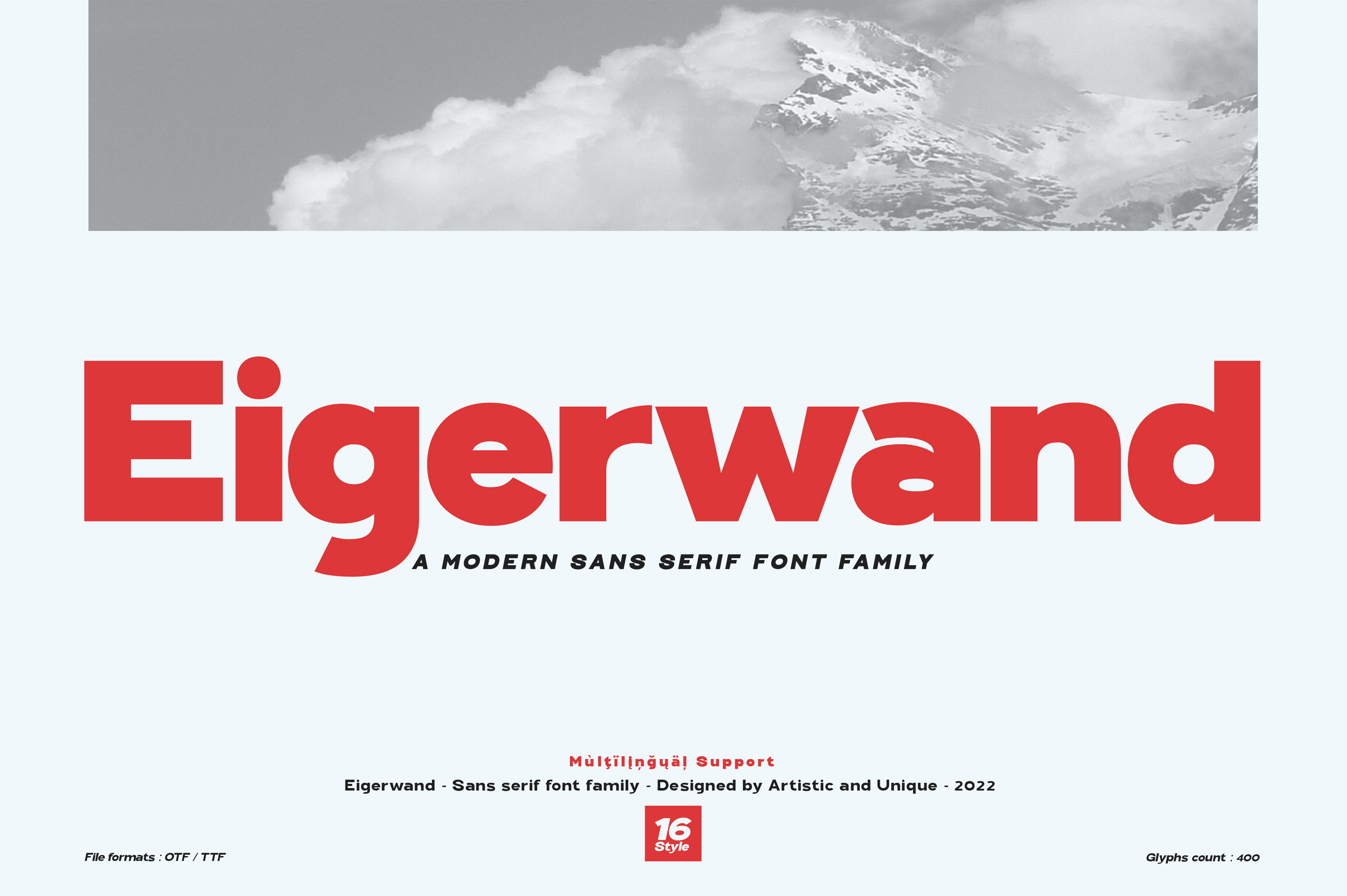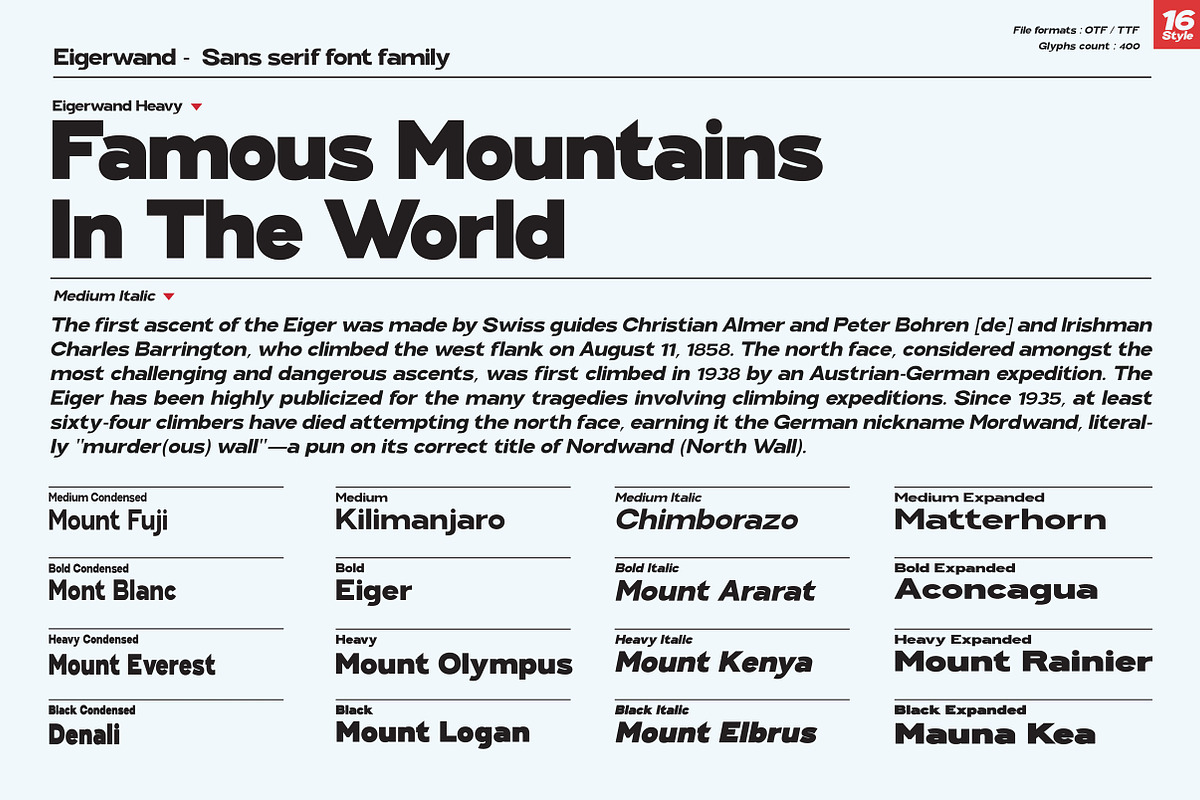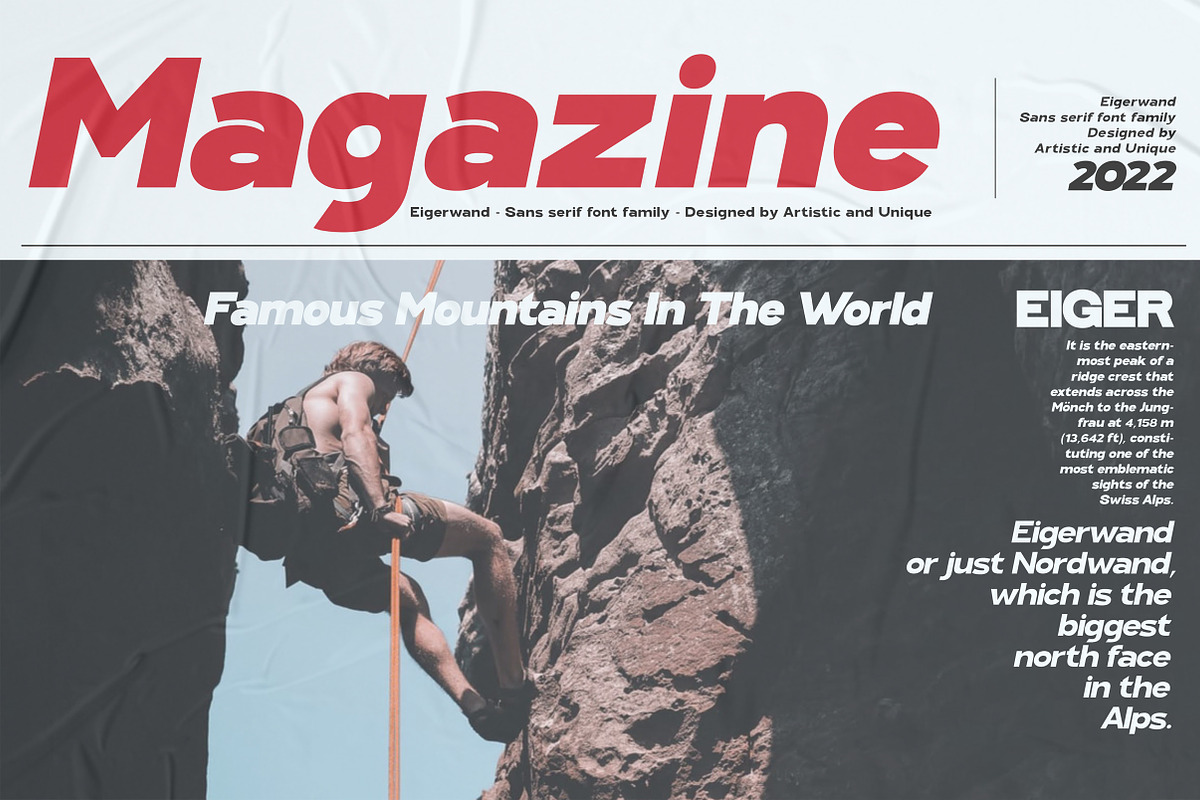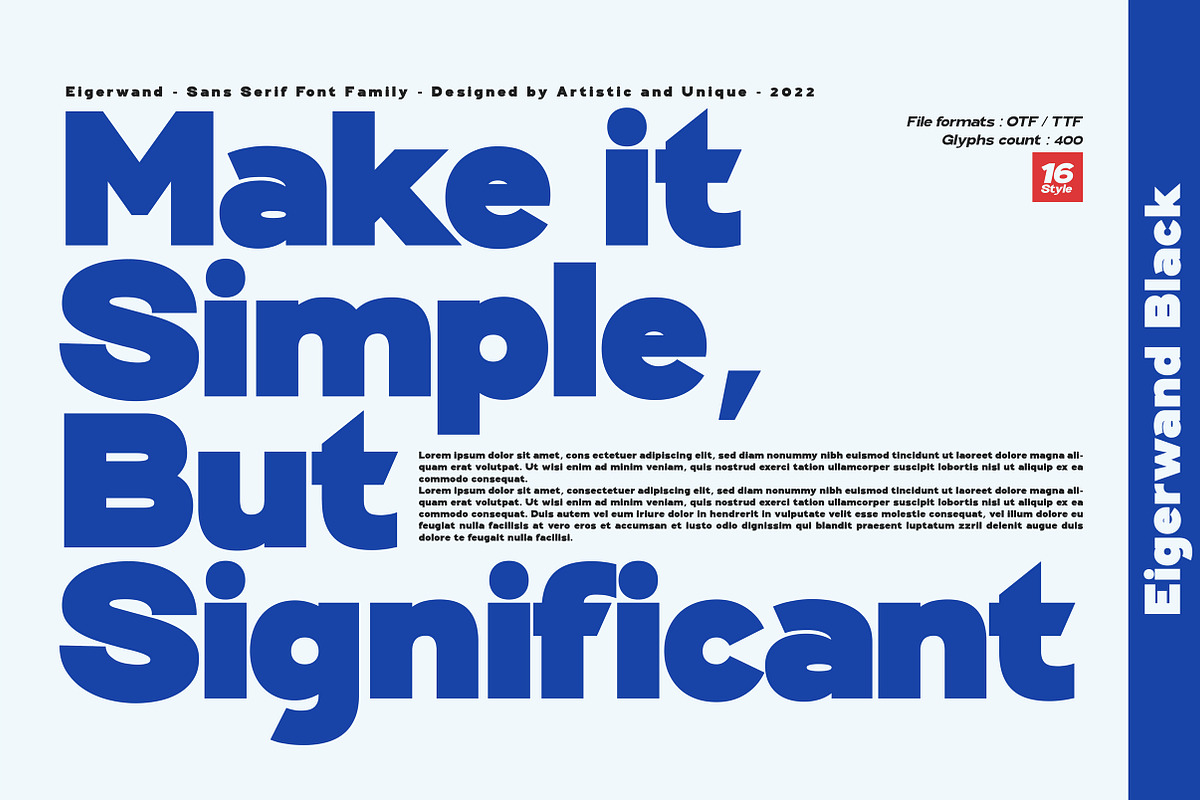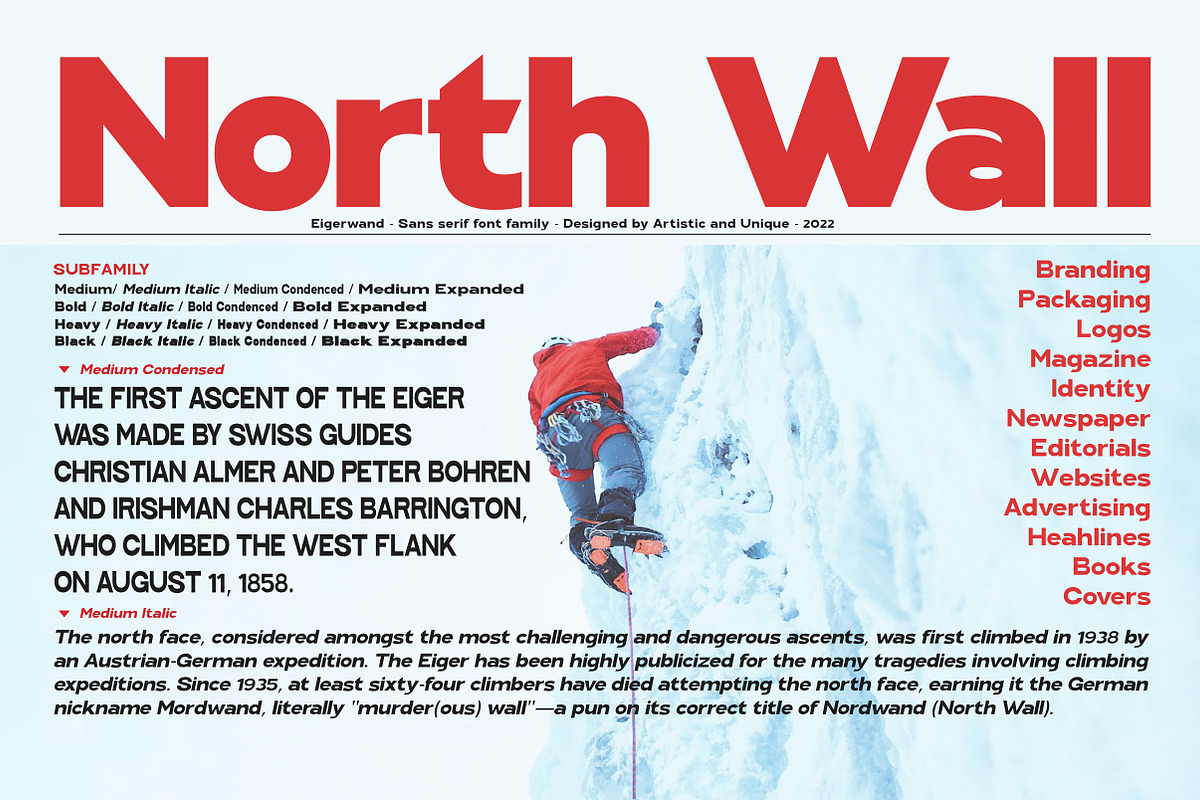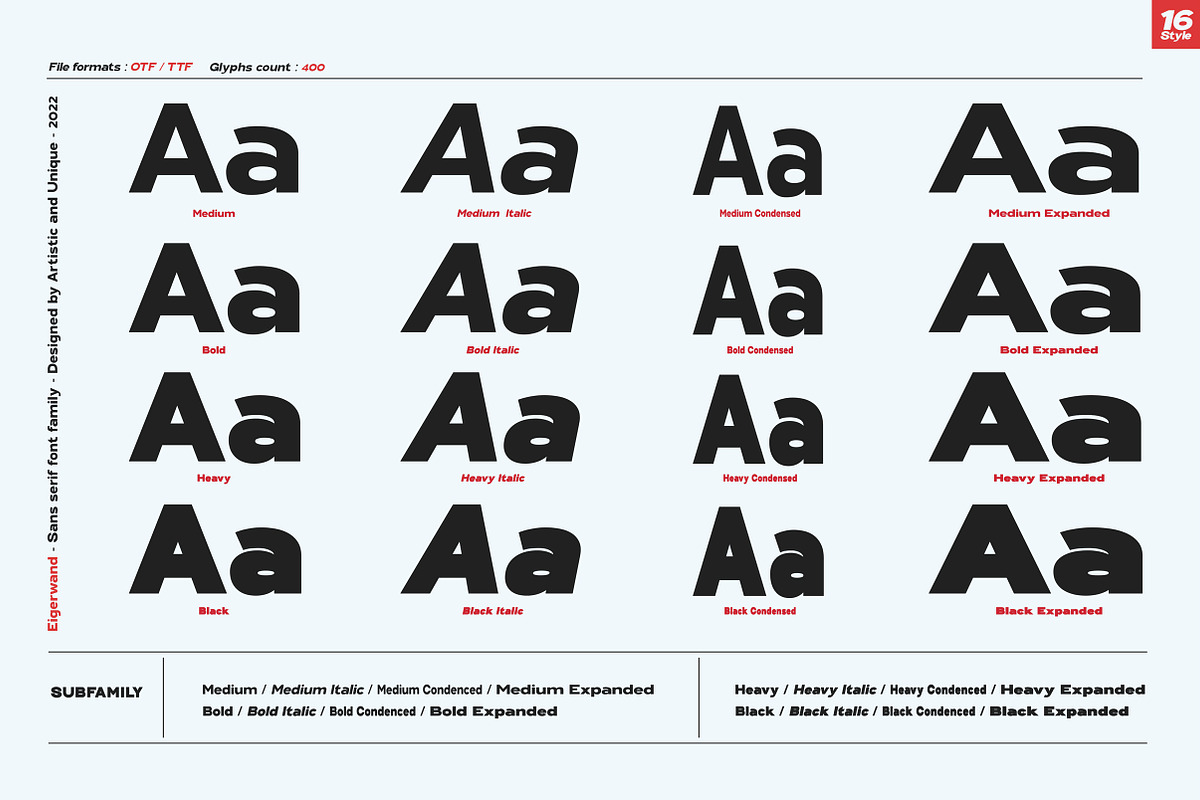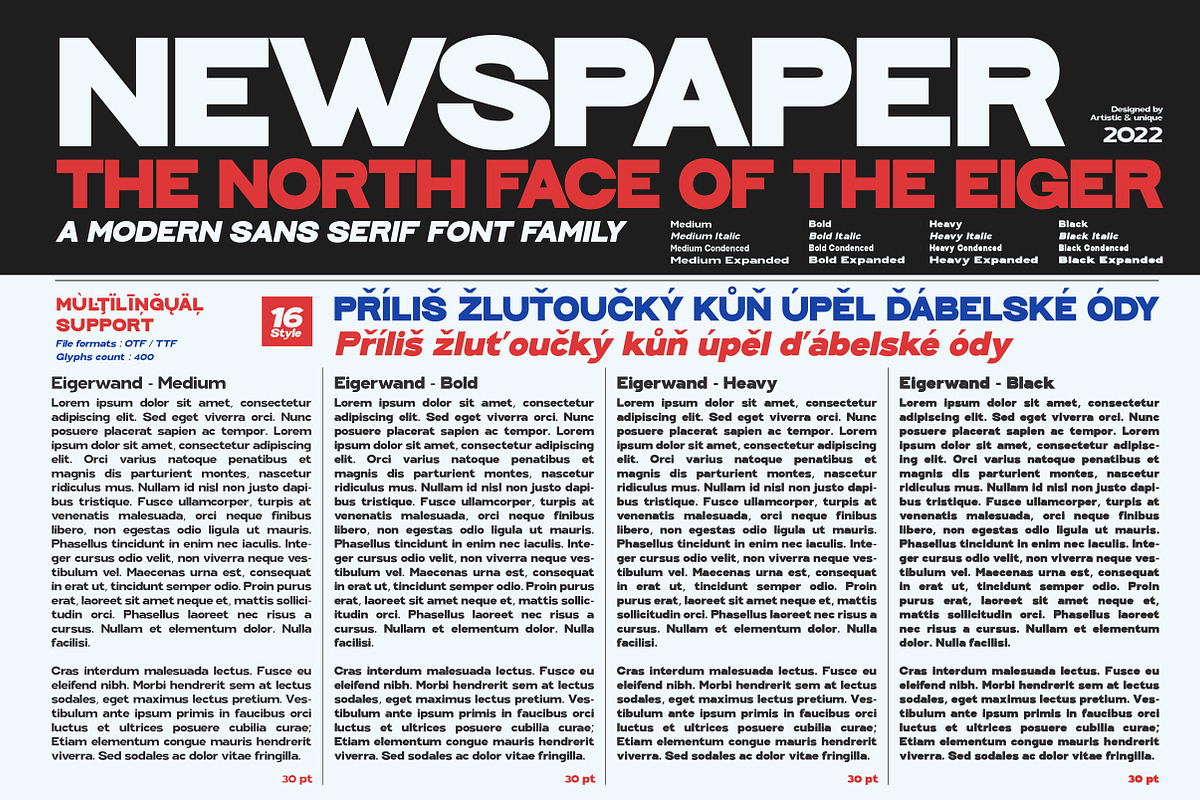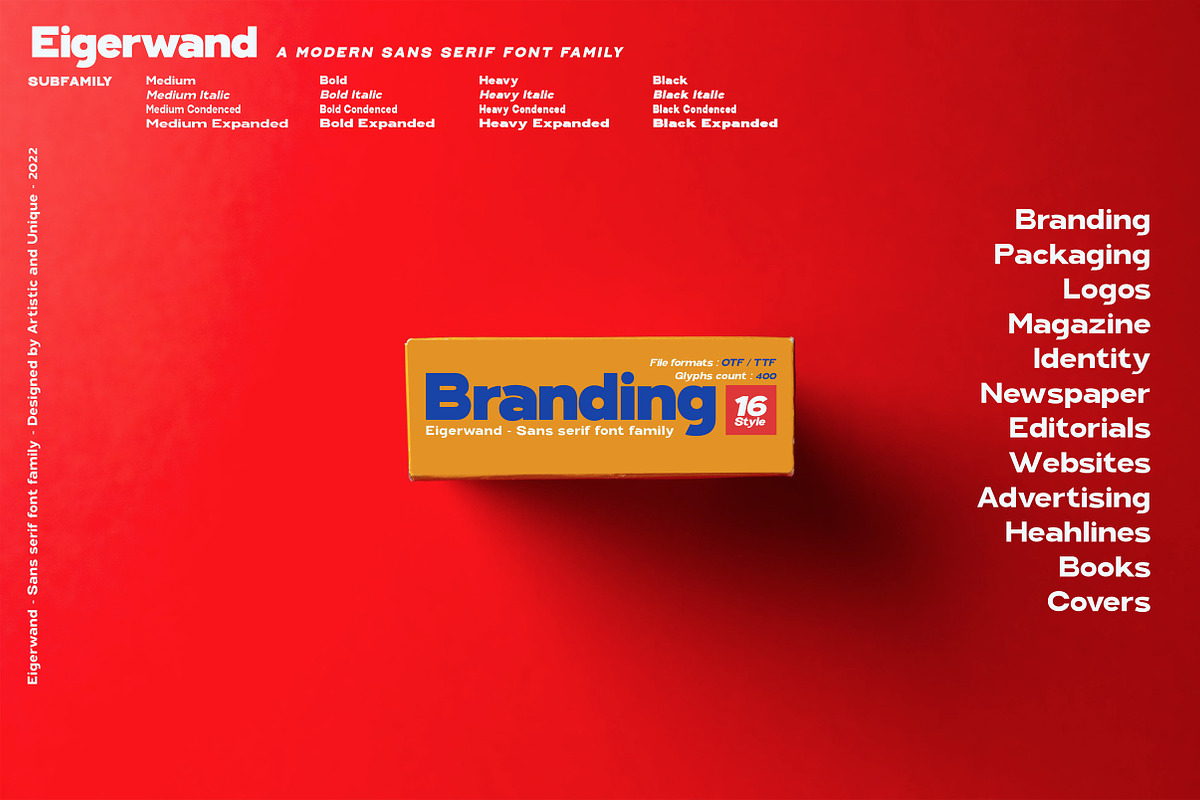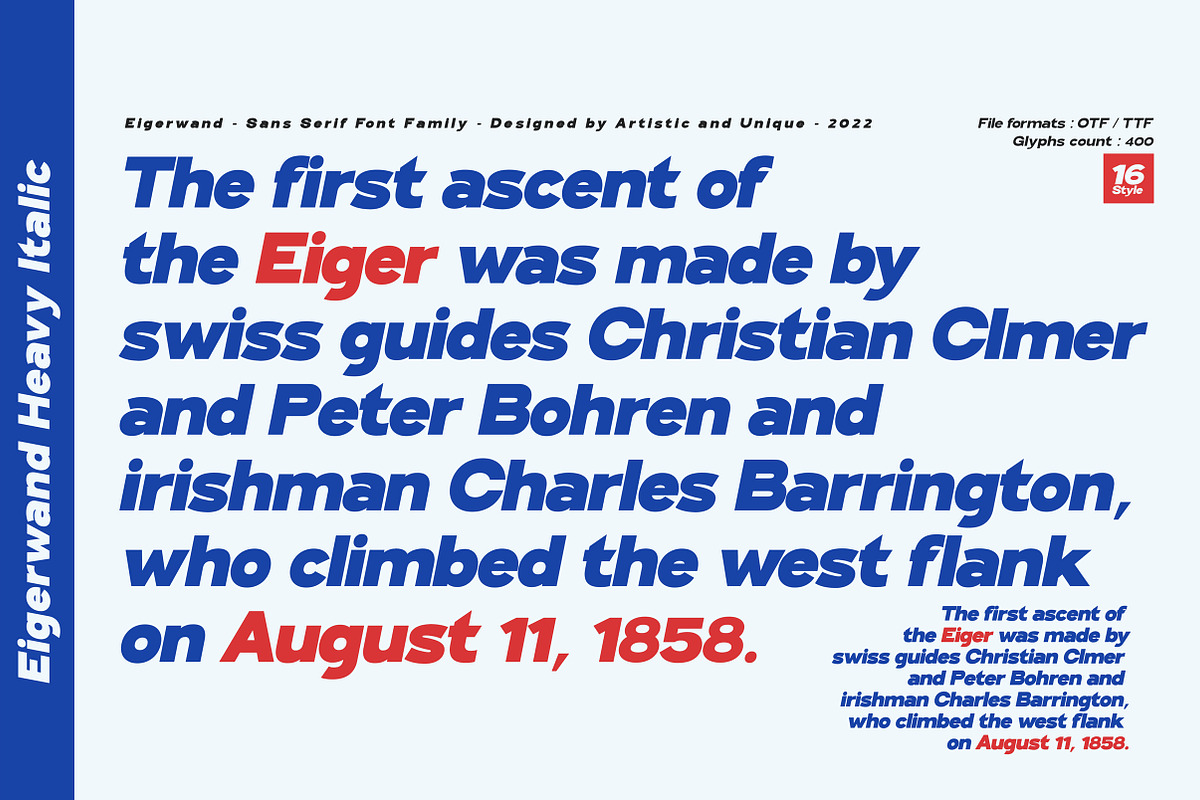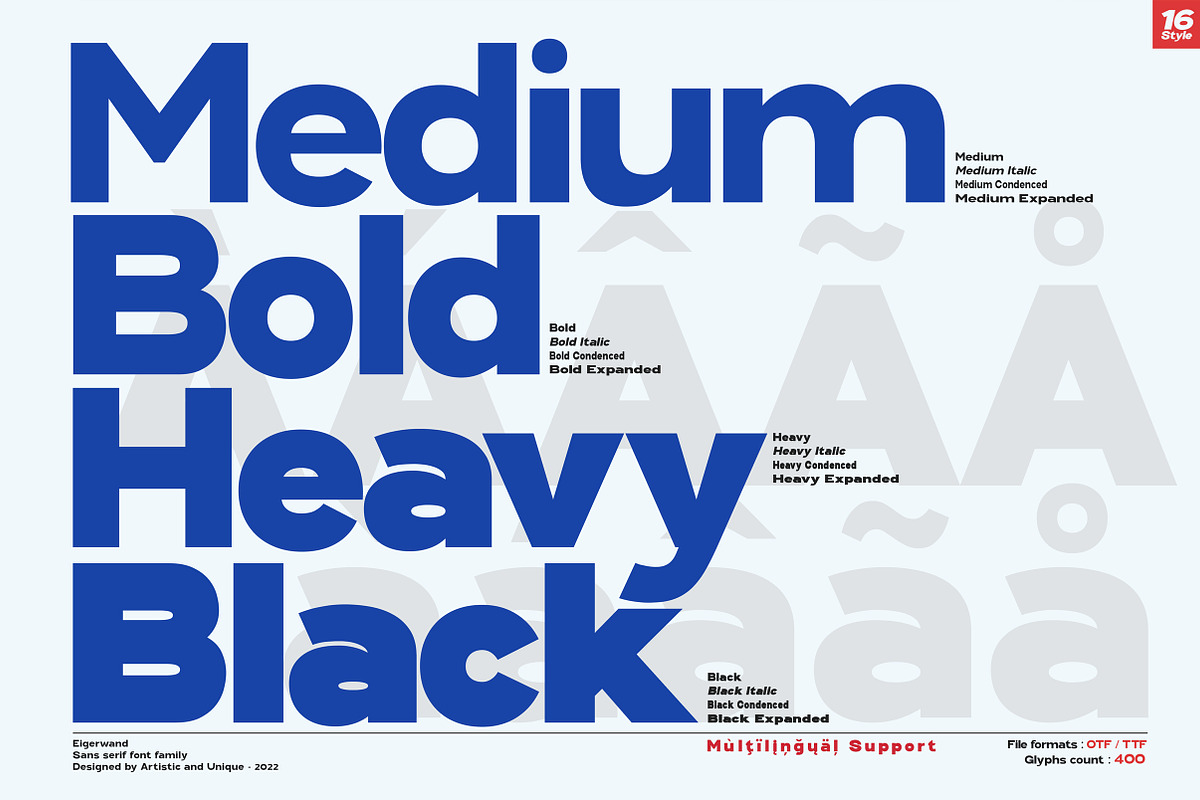
Eigerwand sans serif font family
Eigerwand sans serif font family - Multilingual Supports, 16 Style. ( OTF,TTF)
Eigerwand sans serif font family, includes typographic alternatives with wide character set, small caps and multilingual supports.
It is strong in posters, titles, magazines, web designs, branding, advertising, headlines, wherever you want to be noticed with its weight. You can easily use the sans serif font feature in many areas.
It can meet the needs of both developers and graphic designers in their creative processes.